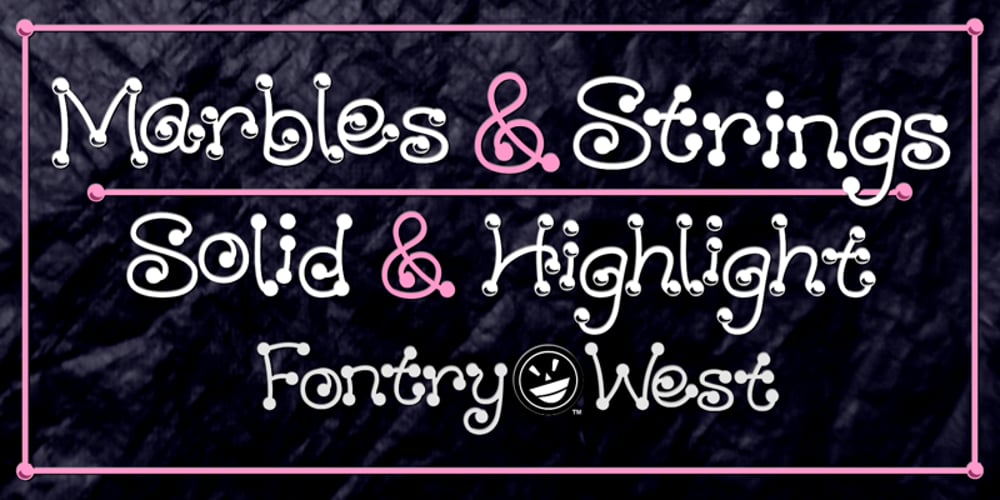
WILD2 Marbles & Strings Font Family was designed by James L. Stirling and published by Fontry West. WILD2 Marbles & Strings contains 2 styles and family package options. Marbles & Strings. It’s doodled letters in the margin of a math paper. It’s notes passed in class. It’s a slumber party. xxooxxoo